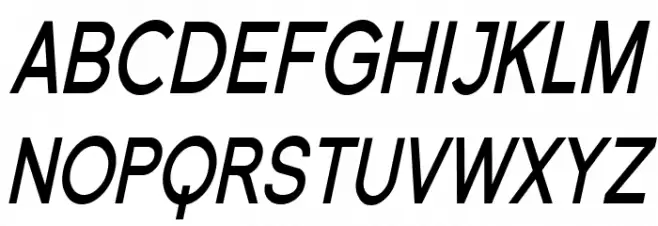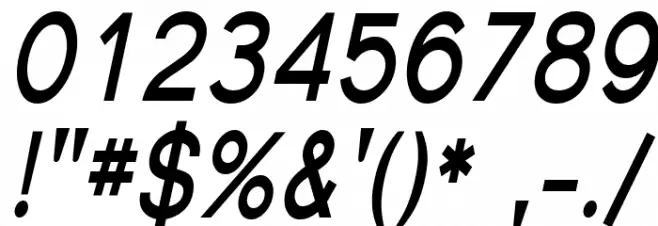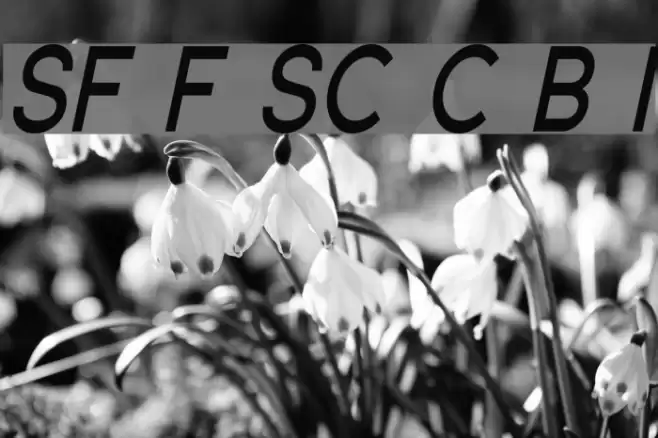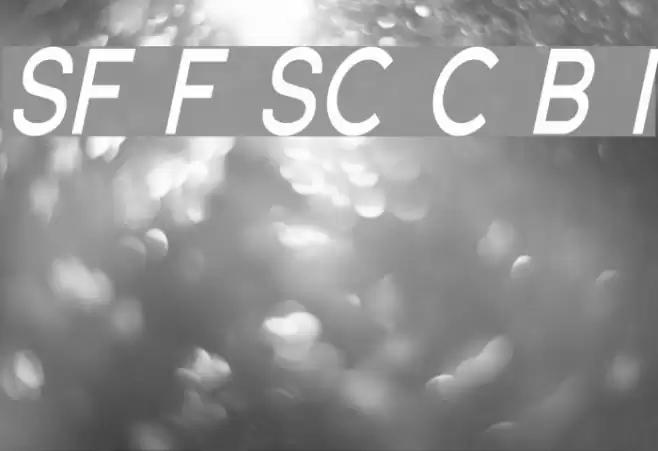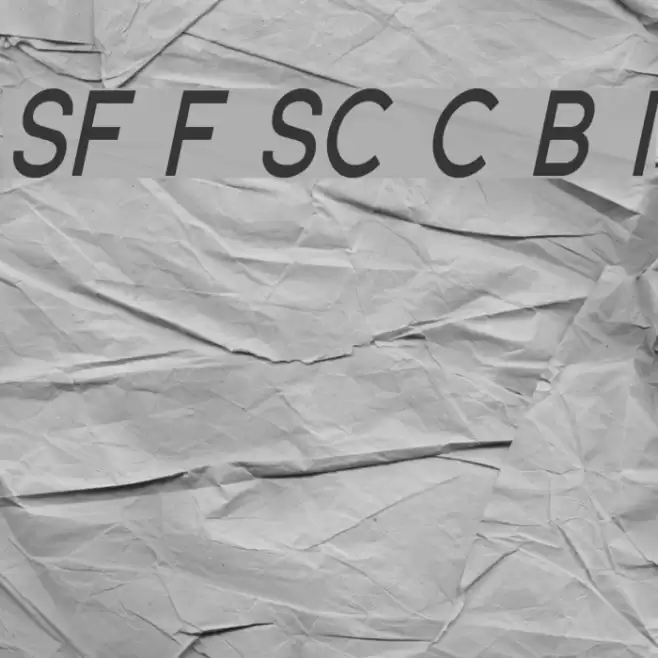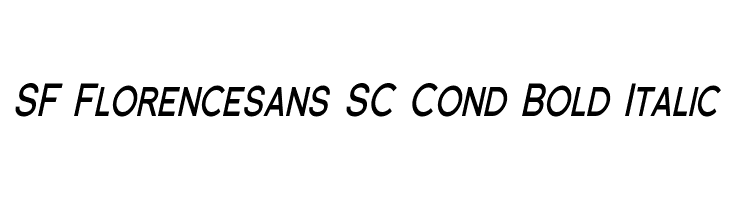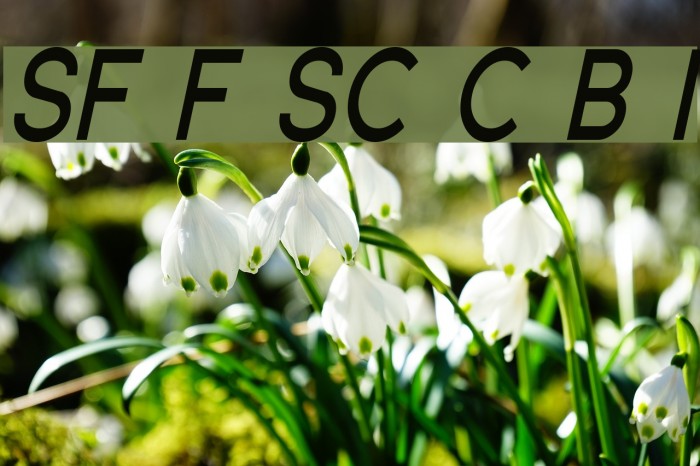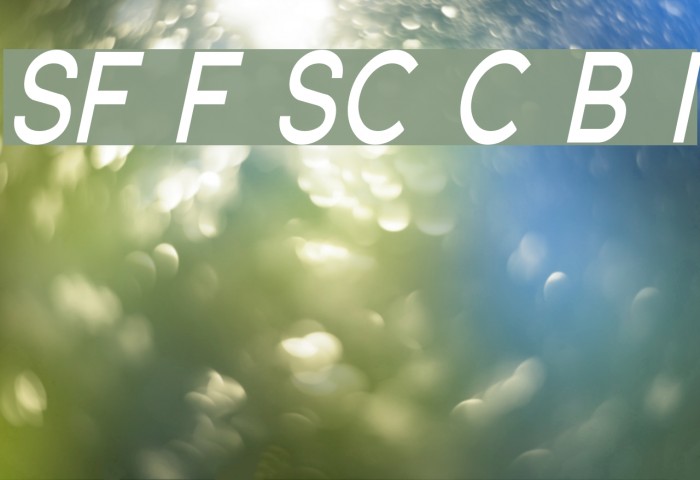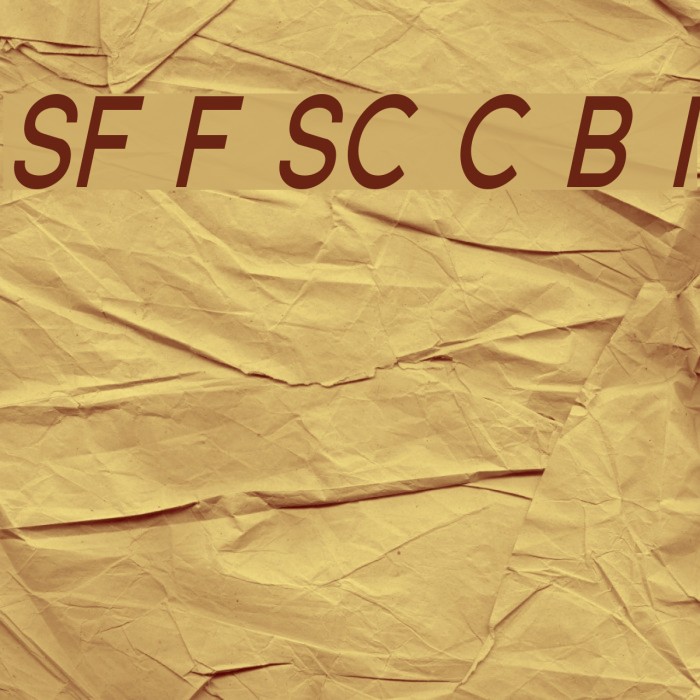
SF Florencesans SC Cond Bold Italic
This font features a modern and sleek design with a condensed structure that enhances its bold and italic characteristics. The letters are slightly slanted, giving it a dynamic and forward-moving appearance. The strokes are consistent in thickness, providing a uniform look across all characters. The font maintains a clean and professional aesthetic, making it suitable for various applications. The numbers and special characters are designed to complement the alphabet, ensuring readability and style consistency.
A modern, bold, and italic sans-serif font with a condensed style.
- Proposed Projects: Ideal for branding projects, advertising campaigns, and editorial headlines where a strong and modern impression is desired.
- Width: Condensed
- Use Case: Headlines, Logos, Branding